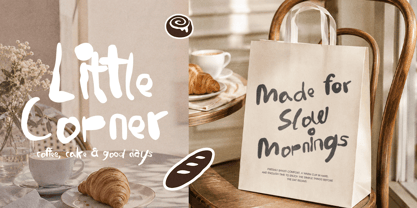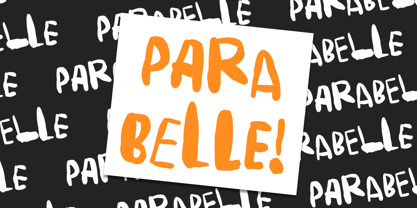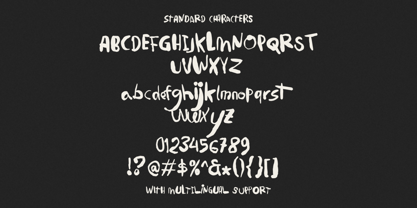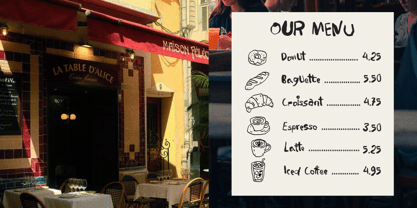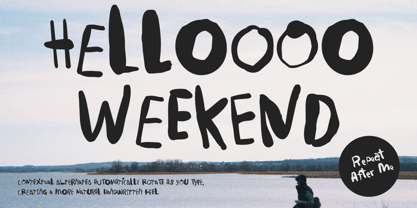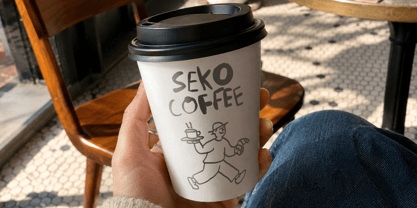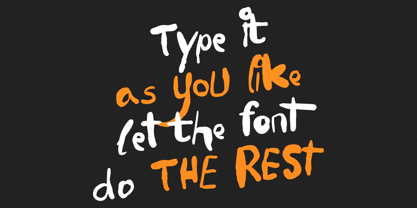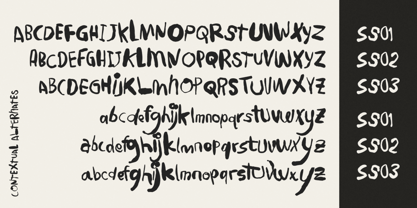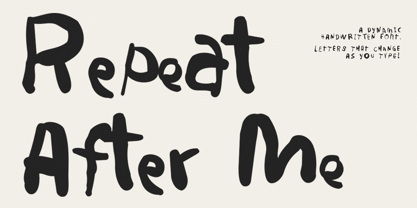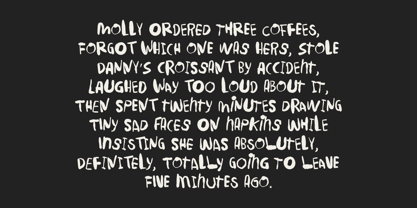
Repeat After Me
by Littlehand
The Repeat After Me Font Family was designed by Aryo Pamungkas and published by Littlehand. Repeat After Me contains 1 styles. More about this family
Repeat After Me is a bold, quirky handwritten font with a wonderfully unpredictable personality. Its chunky strokes, wobbly shapes, and playful proportions give every letter a raw, expressive feel, while contextual alternates naturally shift as you type to create a more spontaneous handwritten rhythm.
Designers: Aryo Pamungkas
Foundry: Littlehand